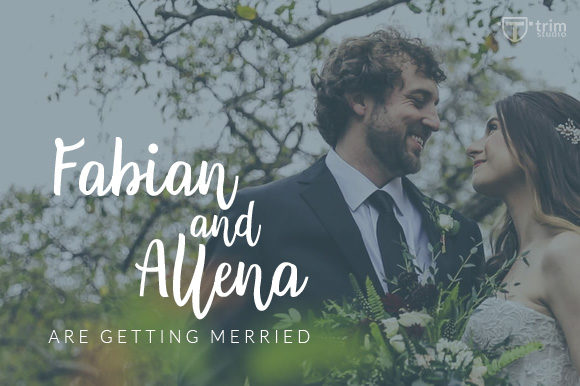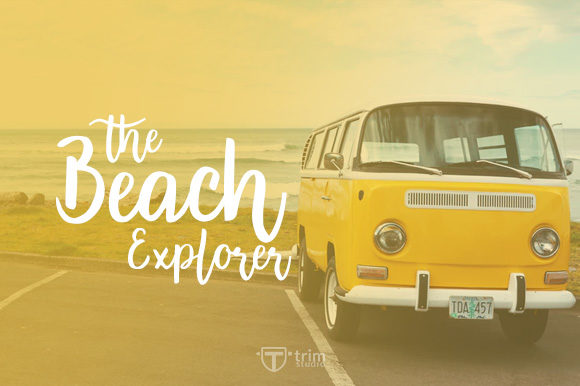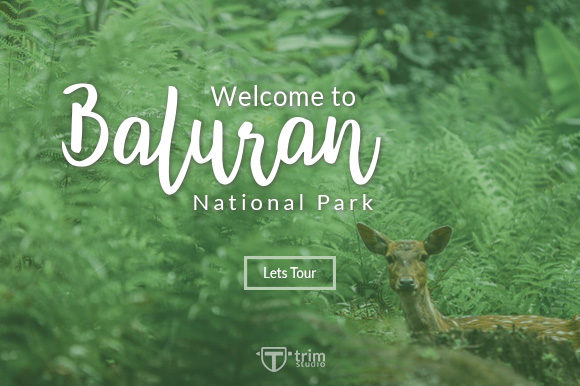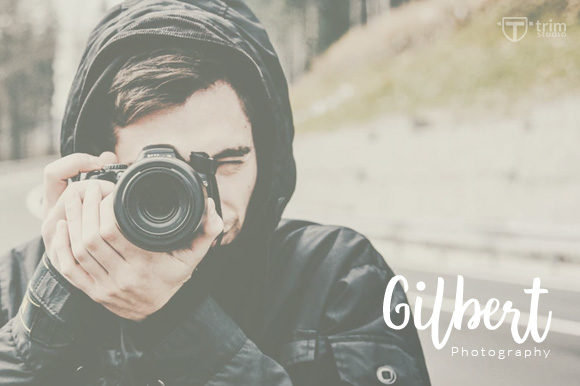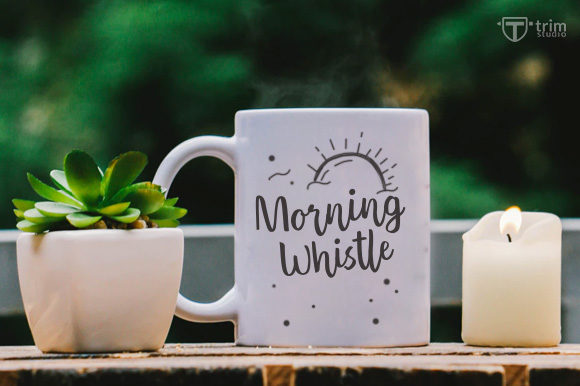
Andaman Font
About Andaman Font
The Andaman is a modern script font. Its handwritten style gives it a natural elegant touch.
Suitable for craft designs, signatures, photography, travel designs, and much more!